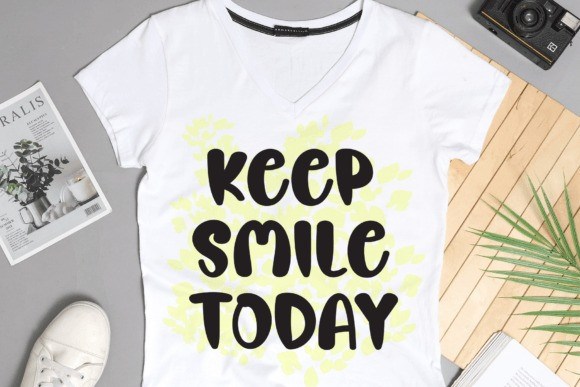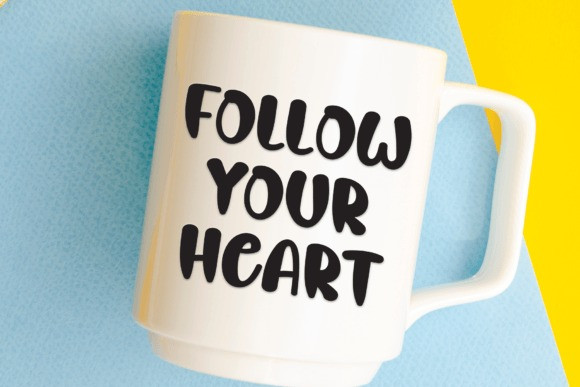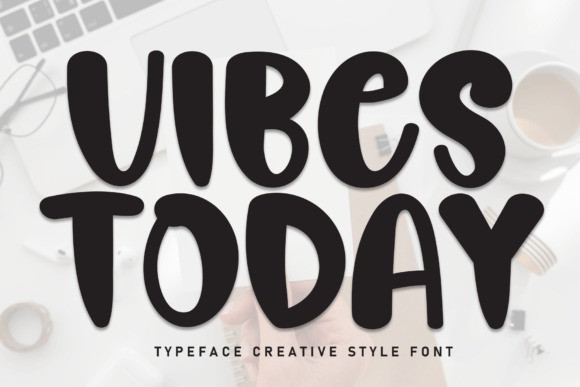
Vibes Today Handcrafted Font
Vibes Today Handcrafted Font feels equally charming and elegant. It looks stunning on wedding invitations, thank you cards, quotes, greeting cards, logos, business cards, and every other design that needs a handwritten touch.